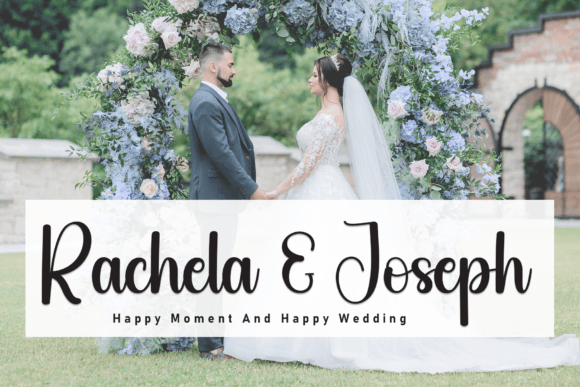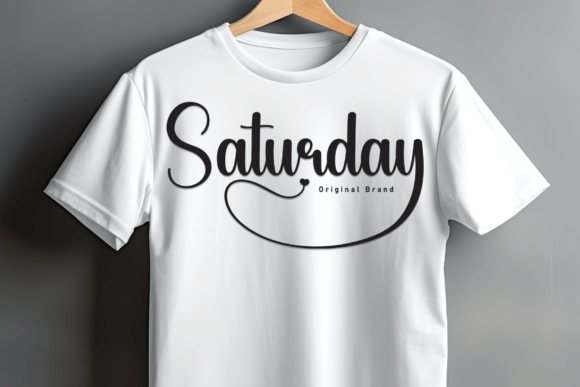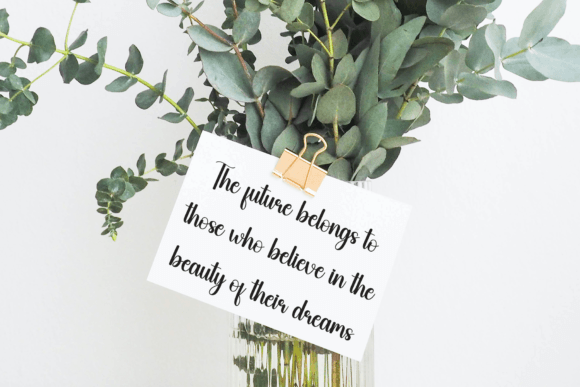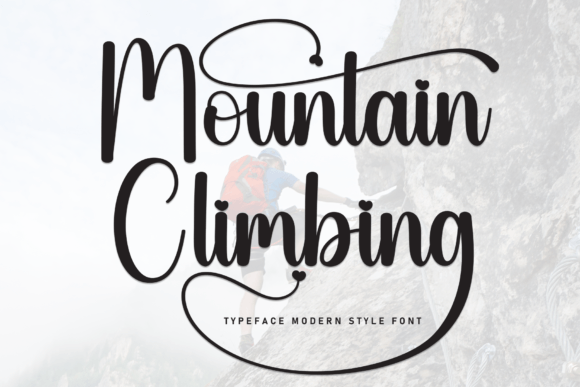
Introduction to Mountain Climbing Font
the latest style letters are perfect for wall displays, wedding invitations, social media post logos, advertisements, product packaging, product designs, labels, photography, watermarks, invitations, stationery, and any project that requires taste handwriting the file you will get is: • OTF file • Works on PC & Mac • Simple installation • Can be accessed in Adobe Illustrator, Adobe Photoshop, Adobe InDesign, and even works in Microsoft Word.
Mountain Climbing Font offers exceptional quality and versatility, making it a valuable addition to your design toolkit. Whether you’re creating for personal projects or commercial use, Mountain Climbing Font delivers professional results.